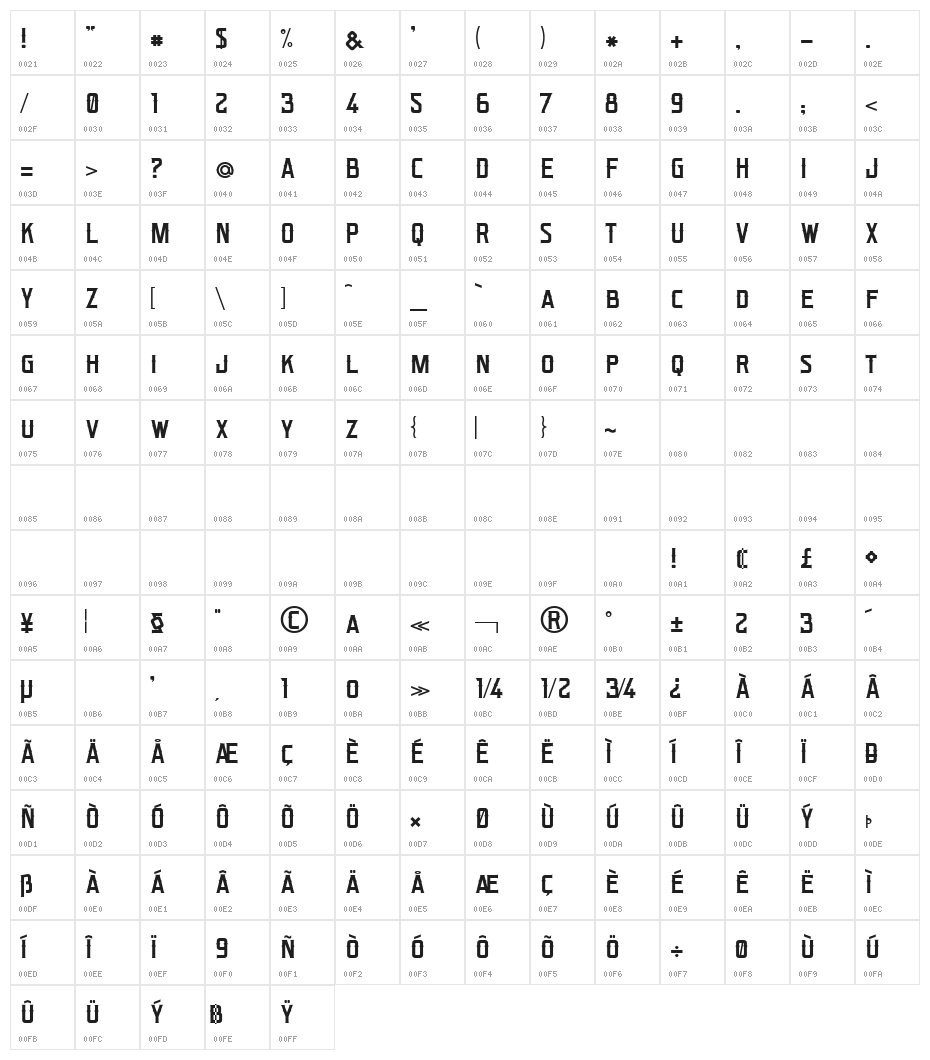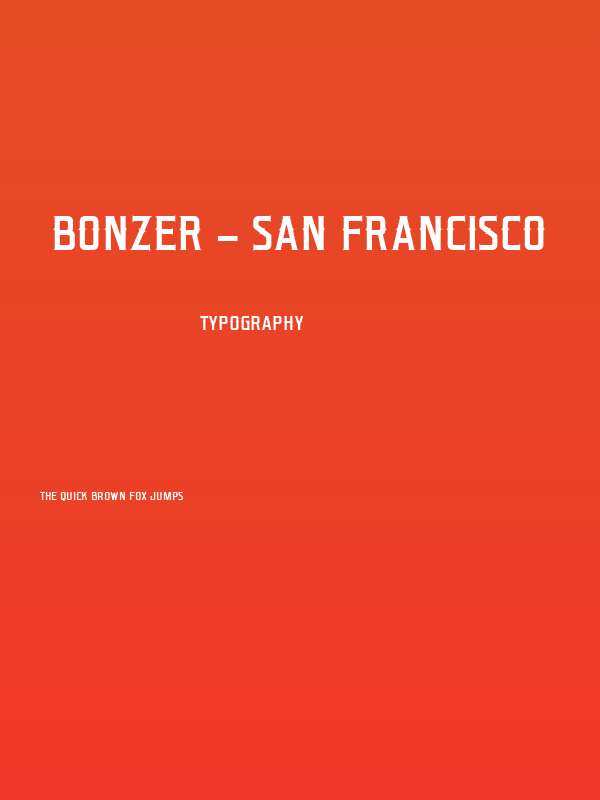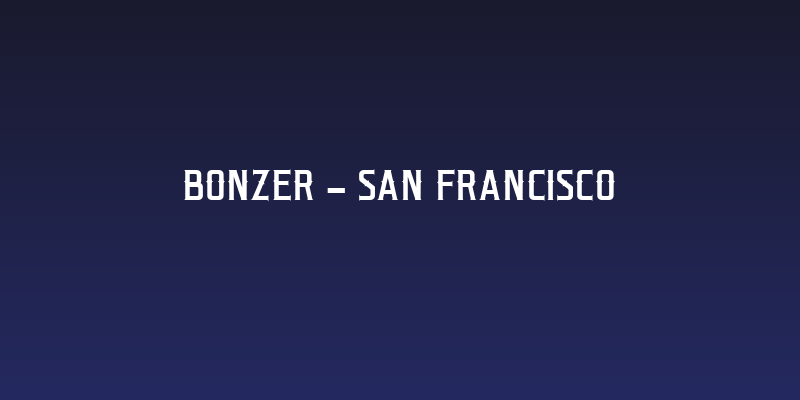
Bonzer - San Francisco Font
Bonzer - San Francisco Description
This font features a bold, geometric design with sharp angles and a strong presence. The uppercase letters are characterized by their uniform height and width, creating a cohesive and structured appearance. The lowercase letters maintain the same boldness, with slightly more variation in their shapes to enhance readability. The numerals are consistent with the overall style, offering a clear and impactful look. Special characters are designed to match the bold and angular aesthetic, ensuring a seamless integration with the rest of the font. This typeface is ideal for making a statement, with its striking and modern design.
| Proposed Projects | Ideal for branding, posters, headlines, and any project requiring a bold, impactful typeface. |